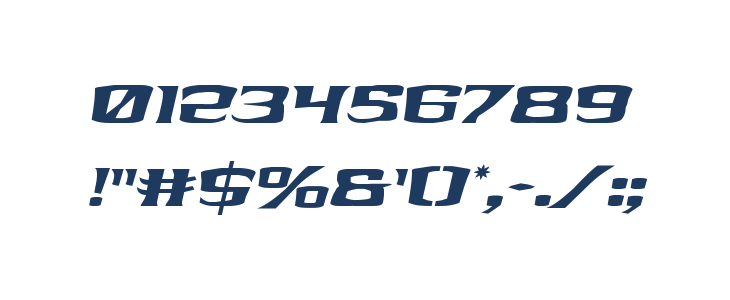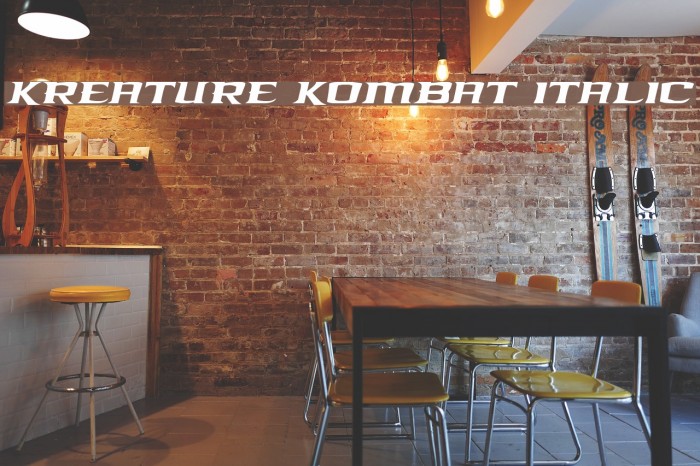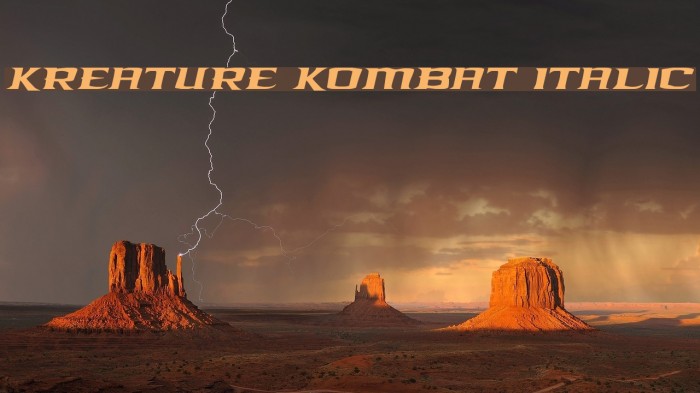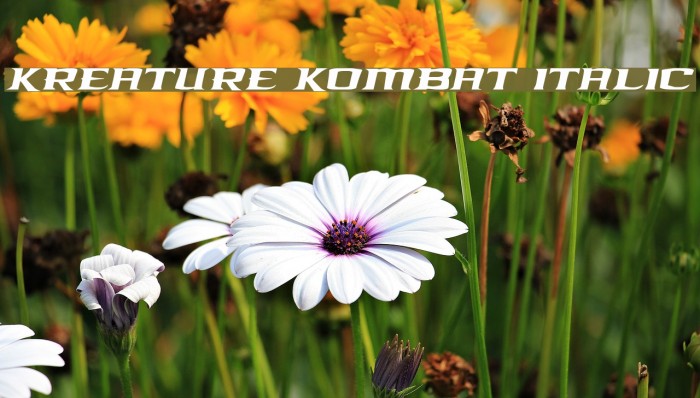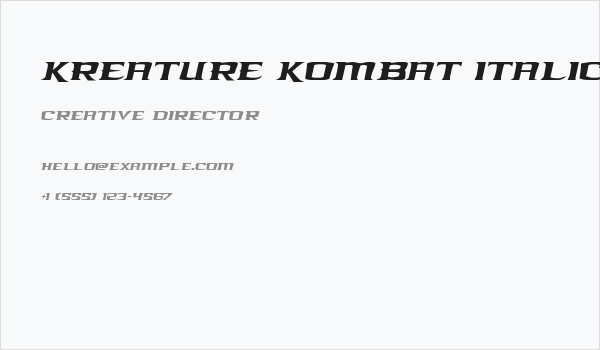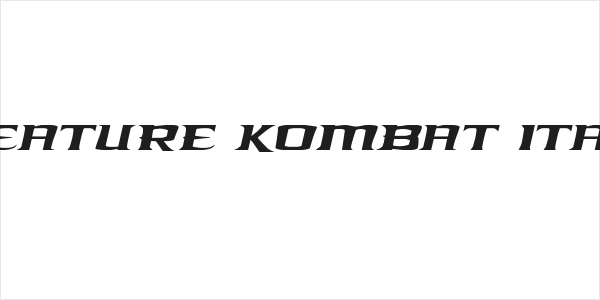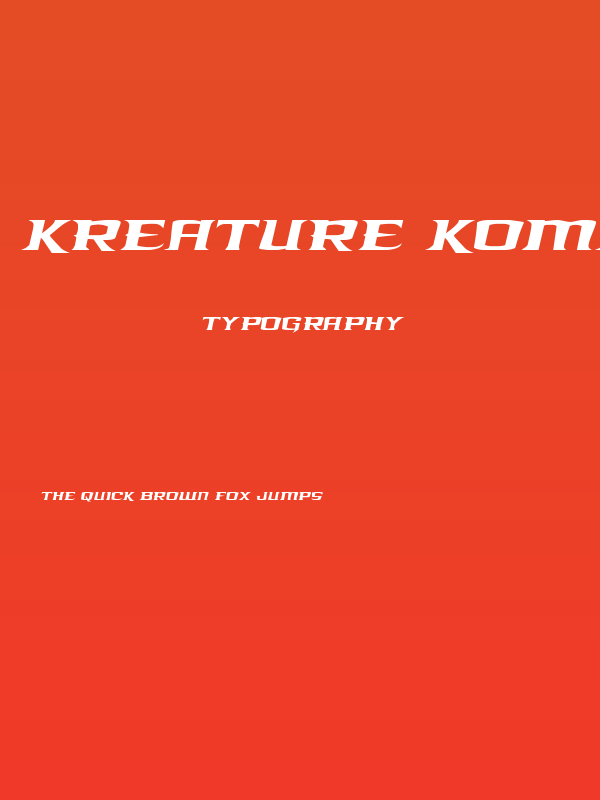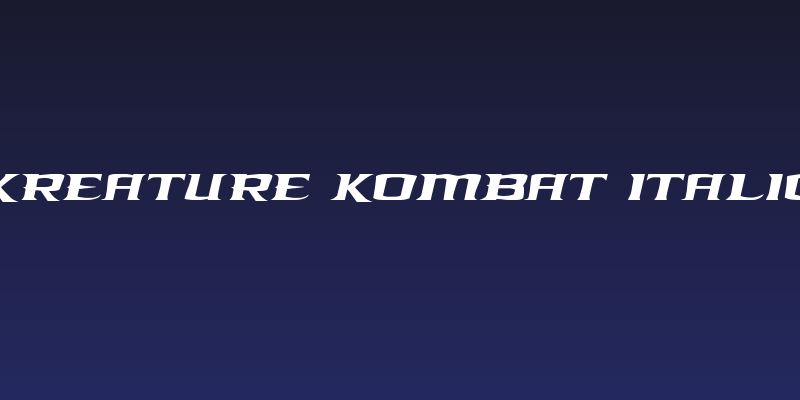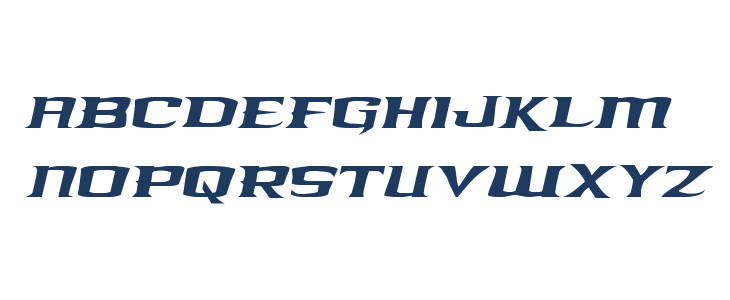
Kreature Kombat Italic Font
Kreature Kombat Italic Description
This font features a bold and dynamic style with sharp, angular edges and a distinct italic slant. The characters are designed with a futuristic and aggressive appearance, making them stand out with a strong visual impact. The uppercase and lowercase letters maintain a consistent style, with a unique flair in the strokes that adds to the font's edgy and modern look. The numerals and special characters are equally bold, complementing the overall aesthetic. This font is ideal for projects that require a striking and memorable typeface.
| Proposed Projects | Ideal for video game titles, movie posters, branding for tech companies, or any project needing a bold, modern look. |